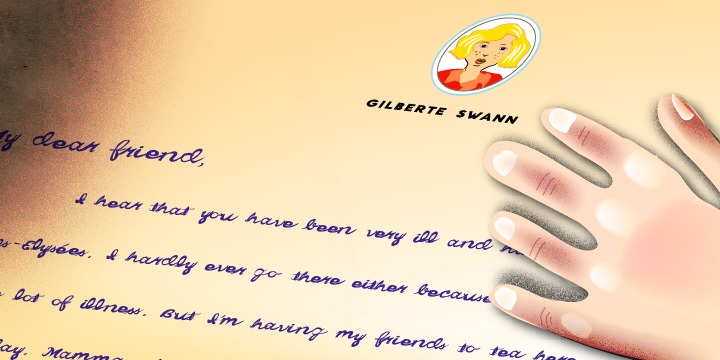
Created in 2010 by V.H. Fleisher, EricScript 90 has a handmade quality.
The font has an OpenType feature, arbitrary fractions, that can be accessed in programs like the Adobe Creative Suite (see gallery images).
Eric Script90